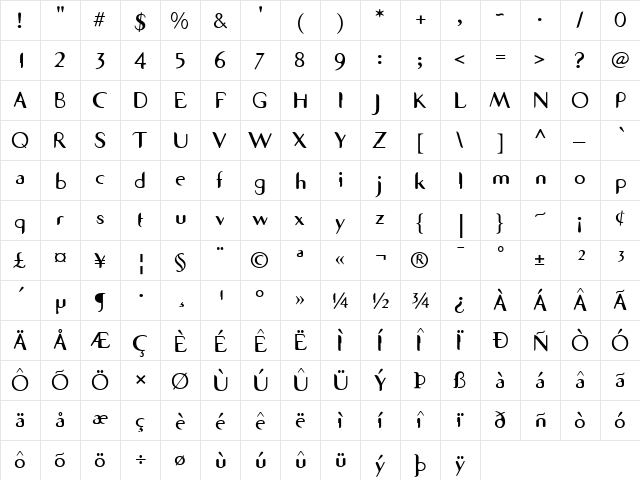
SevenSansICG Bold Font Preview
SevenSansICG Bold
Design Context for SevenSansICG Typeface
SevenSansICG offers clean, dependable letterforms without strong stylistic allegiance, making it a practical choice for designers who need flexibility. Its bold stroke weight gives it real presence on the page.